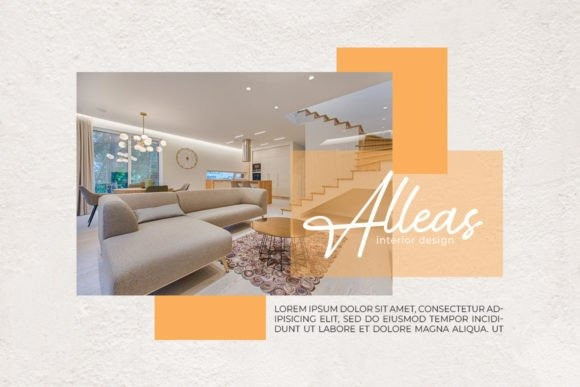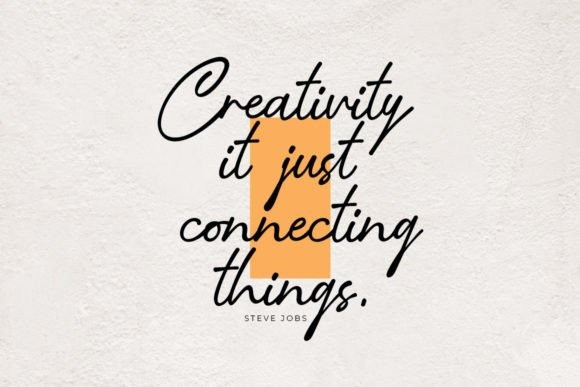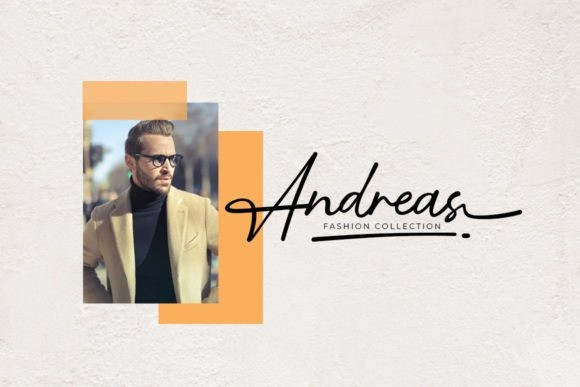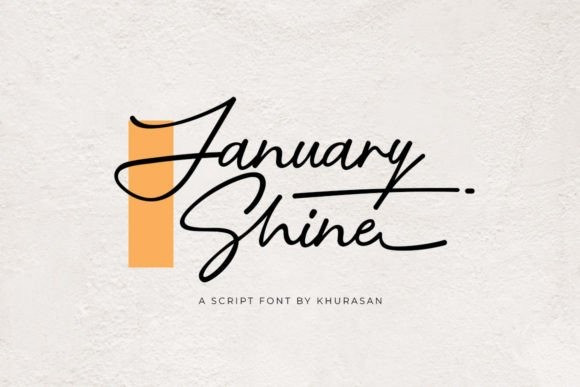
January Shine Font
January Shine Script Font is a hand-drawn calligraphy typeface with exquisite accents. It is perfect for branding, wedding invitations and invitation cards and many more. Fall in love with it and take your projects to the highest level! This font is PUA encoded which means you can easily access all the glyphs and ligatures!